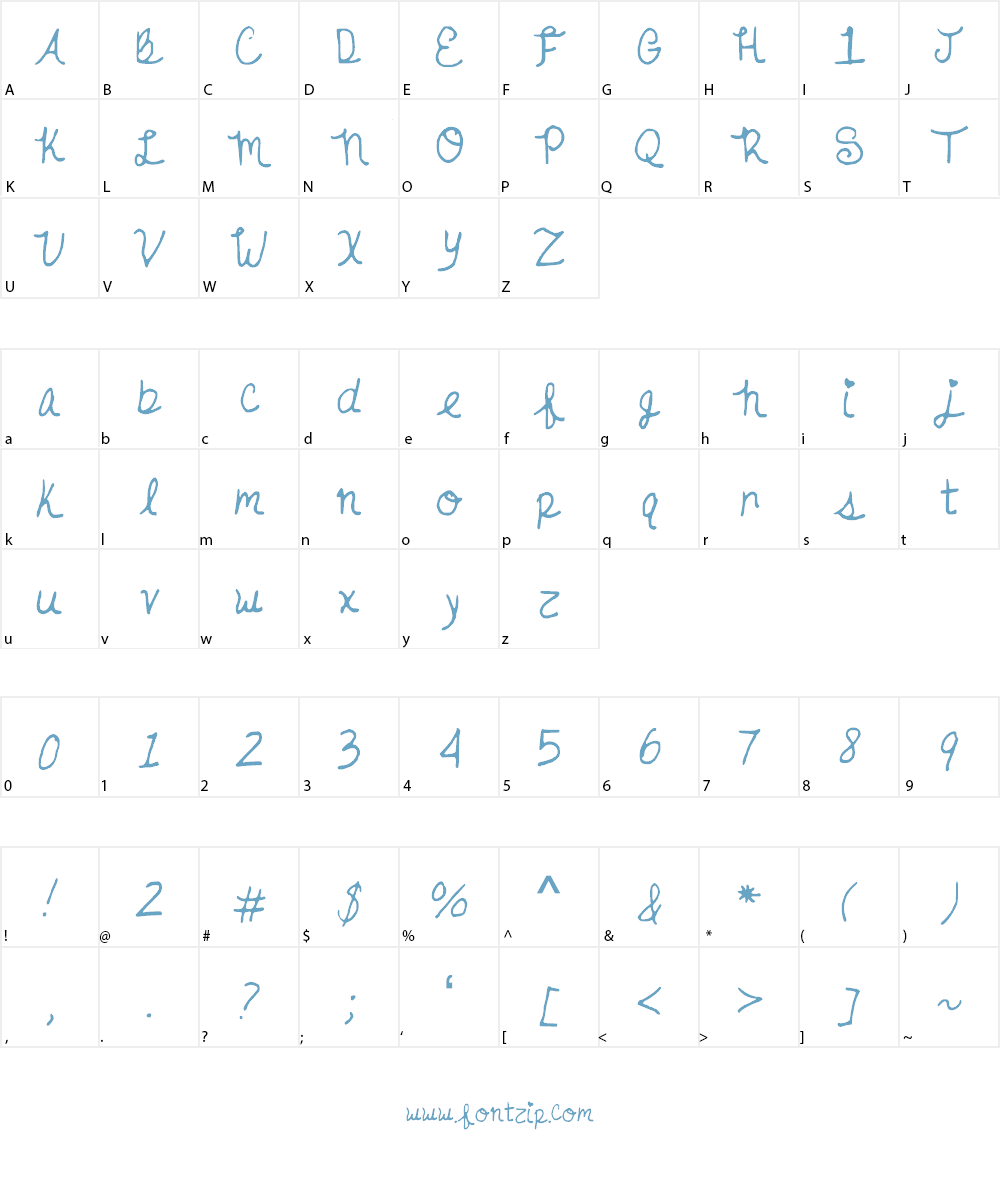
When you're writing to your summer love, when having to be separated after a whole summer of amazing times. Inspired by 'Summer Love' by One Direction :)
This is my first script font! :) Tell me what you think, and what I can improve on for cursive?script :)